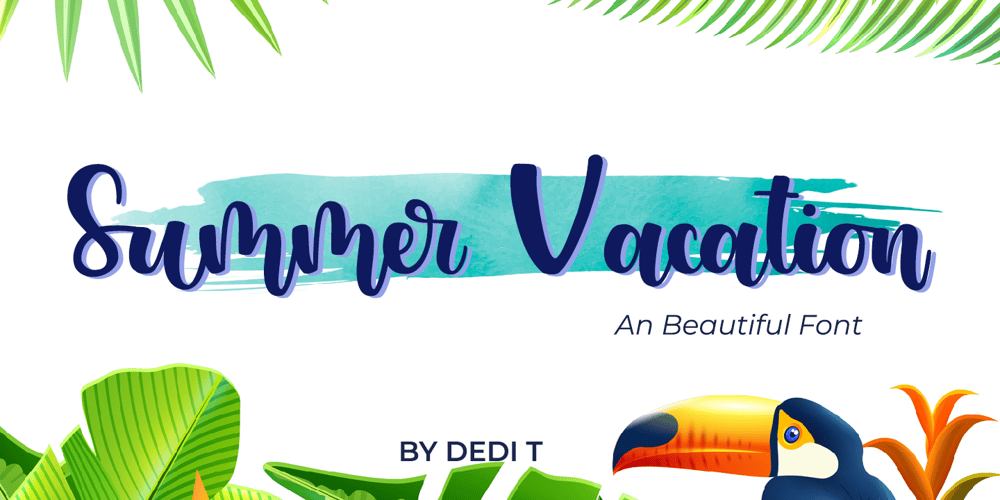
Summer Vacation
Summer Vacation font
Summer Vacation Font Family was designed by Dedi Tri Anggara and published by PandAE86. Summer Vacation contains 1 styles and family package options. Introducing Summer Vacation. Summer Vacation font is a simple and classy font, comes with opentype features such as stylistic alternates,swash and ligatures. We make this font looks classy, readable, stylish, catchy and easy to use.Summer Vacation is the great choice for photography, signature or signature logo design, quotes, album cover, business card, and many other design project. From business cards to photo watermarks, Summer Vacation is here to elevate your work to the highest level.What is include :· Numeral and Punctuation· Ligatures and Alternate· Multilingual Support I hope you enjoy this font.Thank You,Dedi T